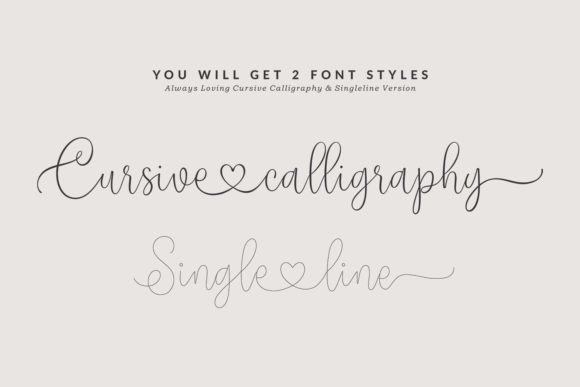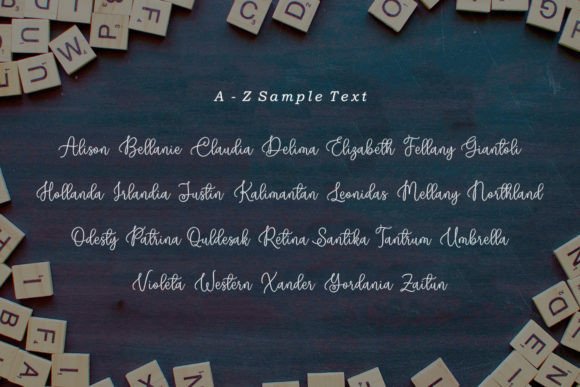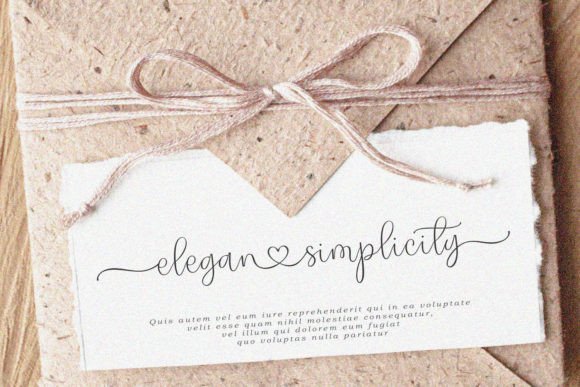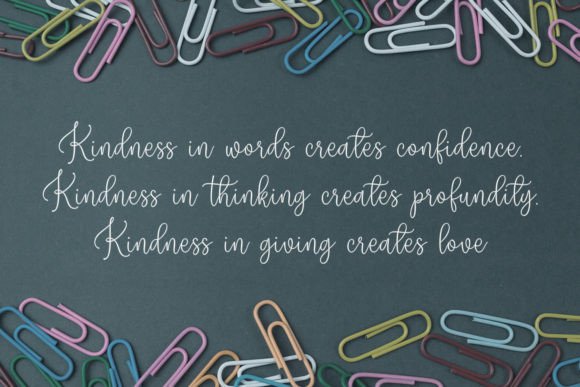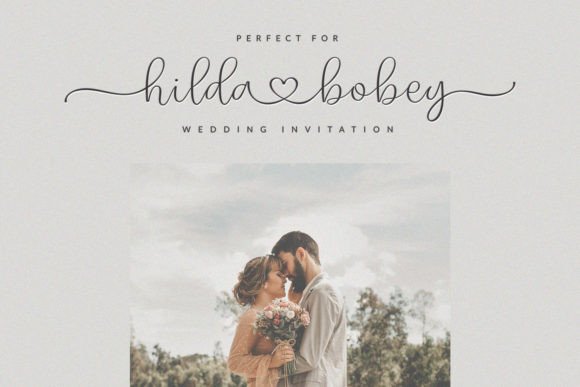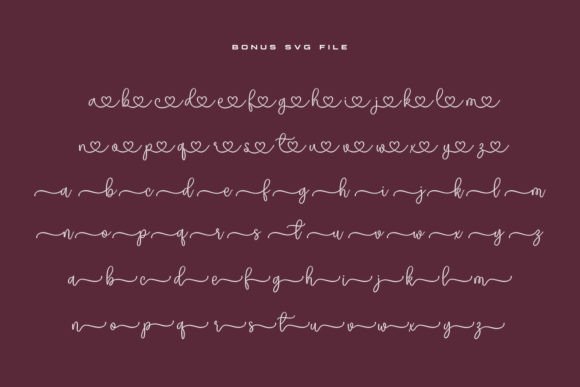
Discover the Perfect Font to Express Your Love
Have you ever sat in front of your computer, staring at a blank screen, trying to come up with the perfect design for your next project? The words just aren’t flowing, and you’re feeling stuck. But then, it happens – a spark of inspiration hits, and you can’t wait to get creative.
This is where Always Loving Font comes in – a chic and lovely calligraphy font that adds a personal touch to any project. With its natural handwritten style, this font is perfect for designers looking to add a touch of elegance and sophistication to their work. And the best part? It’s PUA encoded, making it easy to access all the glyphs and swashes you need to create truly spectacular designs.
Whether you’re a seasoned designer or just starting out, Always Loving Font is a valuable addition to your toolkit. Its timeless style ensures that your designs will never go out of fashion, and its versatility makes it perfect for a wide range of projects – from wedding invitations to social media graphics.
- Unique Characteristics: The font features a unique, hand-drawn aesthetic with a mix of cursive and script elements, giving it a personal and emotive feel.
Designer Review: “Always Loving Font”
At first glance, I was immediately drawn to the playful and whimsical feel of the “Always Loving Font”. ✨ The font’s elegant script and flowing connections between letters create a sense of movement and fluidity that’s perfect for capturing a romantic and dreamy atmosphere. It’s also surprisingly versatile, working well for both digital and print projects.
One of the standout features of “Always Loving Font” is its ability to convey a sense of softness and warmth, making it ideal for titles, headings, and body text in wedding invitations, social media graphics, and other design projects that require a touch of whimsy.
- ✨ Elegant script style
- ✨ Versatile and suitable for digital and print projects
- ✨ Perfect for capturing a romantic and dreamy atmosphere
- ✨ Soft and warm feel
- ⚠️ May be difficult to read in small sizes or low-resolution formats
- ⚠️ Limited character set and support for certain languages
- ⚠️ May not be suitable for formal or corporate design projects
Overall, I’m impressed with the unique character and charm of the “Always Loving Font”. While it may have some limitations, it’s a great addition to any designer’s toolkit for creating eye-catching and memorable designs.